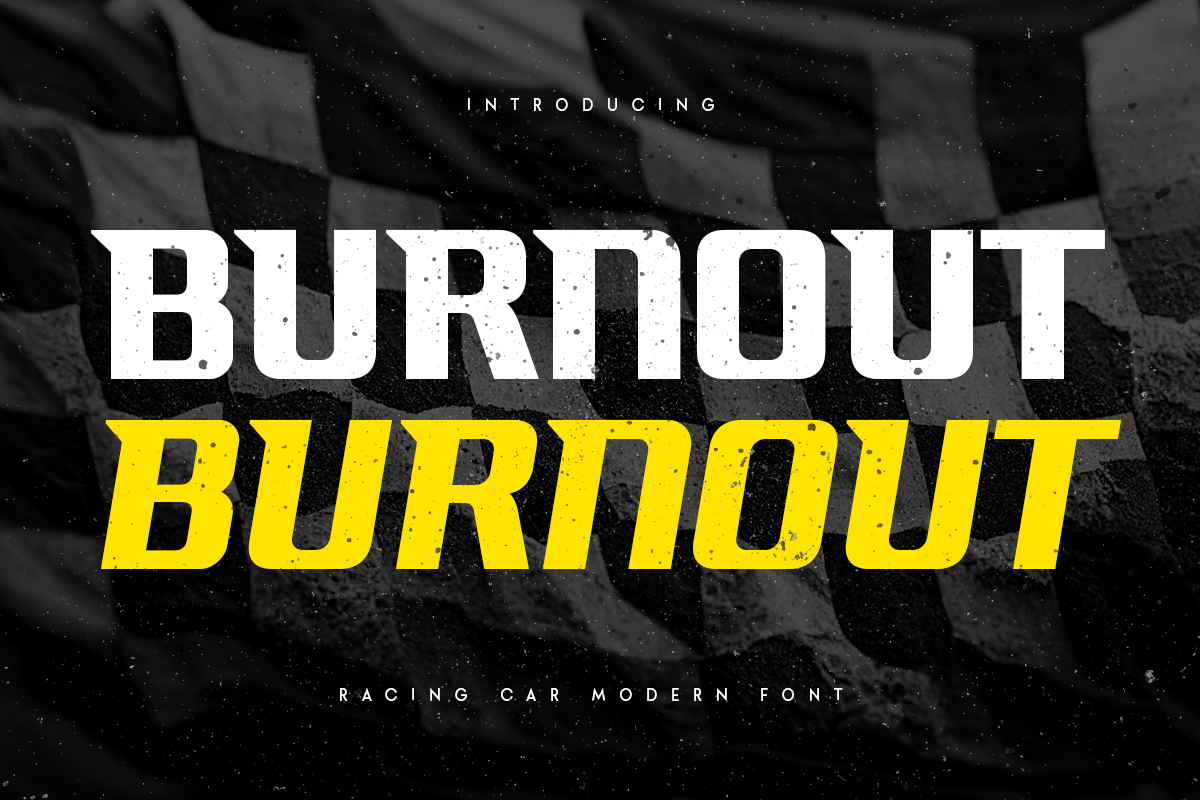
Burnout - Racing Car Modern Font
Burnout delivers high-octane typography designed specifically for racing, sports, and action-packed branding projects. This racing car modern font brings bold action style with contemporary appeal, making it perfect for sport and action branding, impactful titles, and standout typography. The design excels in sport, technology, action, and fighting themes, crafted to showcase your main concept with maximum visual impact. What's included with Burnout Racing Car Modern Font: Regular and Italic cha...